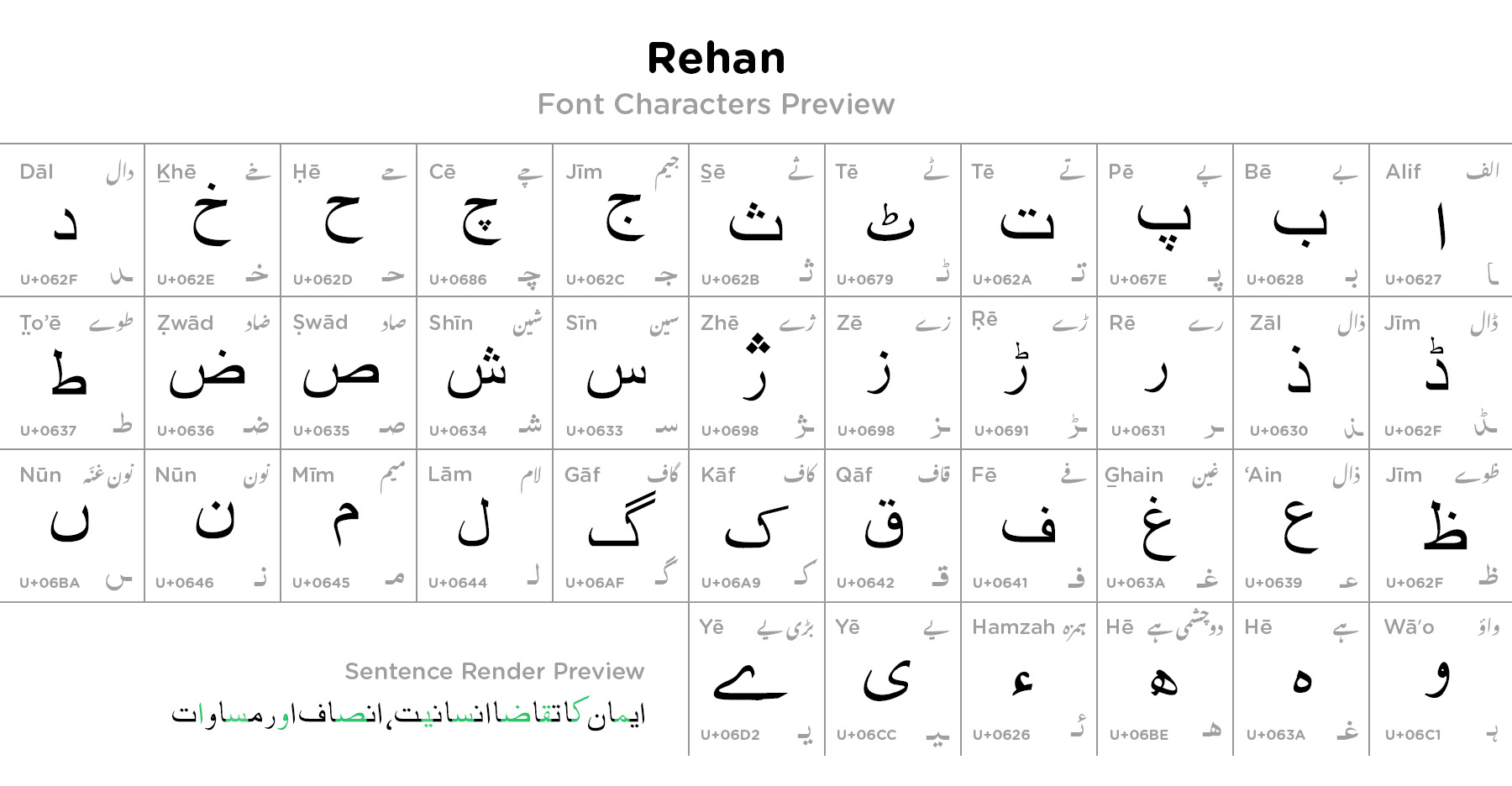
Rehan
Rehan is an Urdu font designed by Syed Manzar Hasan Zaidi and published by Axis Softmedia Pvt. Ltd. It offers a sharp and angular style with minimal decorations. Released on March 15, 2016, the font draws inspiration from the Naskh script, which is evident in its simple yet elegant design with a horizontal emphasis. With 444 characters and 497 glyphs, this typeface supports Arabic, Urdu, Latin, Greek, and more, increasing its appeal to designers. Moreover, with the compatibility across various Unicode blocks, the font becomes more diverse and accessible.
Best suited for long text due to its easy readability, Rehan features a moderate thickness and delicate strokes. Its regular appearance showcases sharp angles and pointy edges, with relatively larger negative spaces between letters. Additionally, the font maintains a monospaced layout, enhancing its regularity and clarity. Ideal for long editorial projects, creative writings such as poetry, or crafting professional documents, it offers versatility and legibility. Its clean and straightforward design and ease of reading make it a reliable choice for various applications.